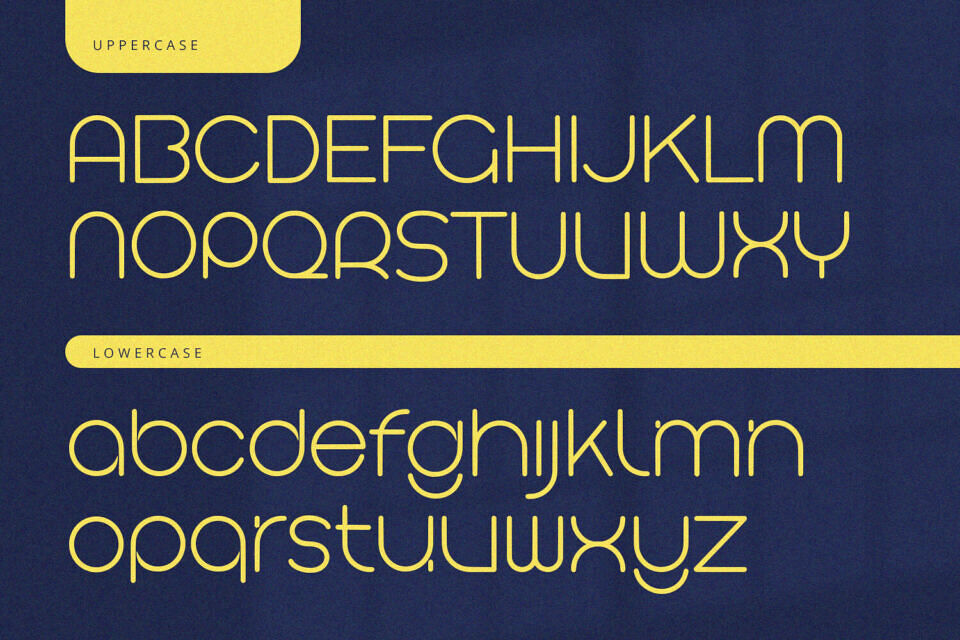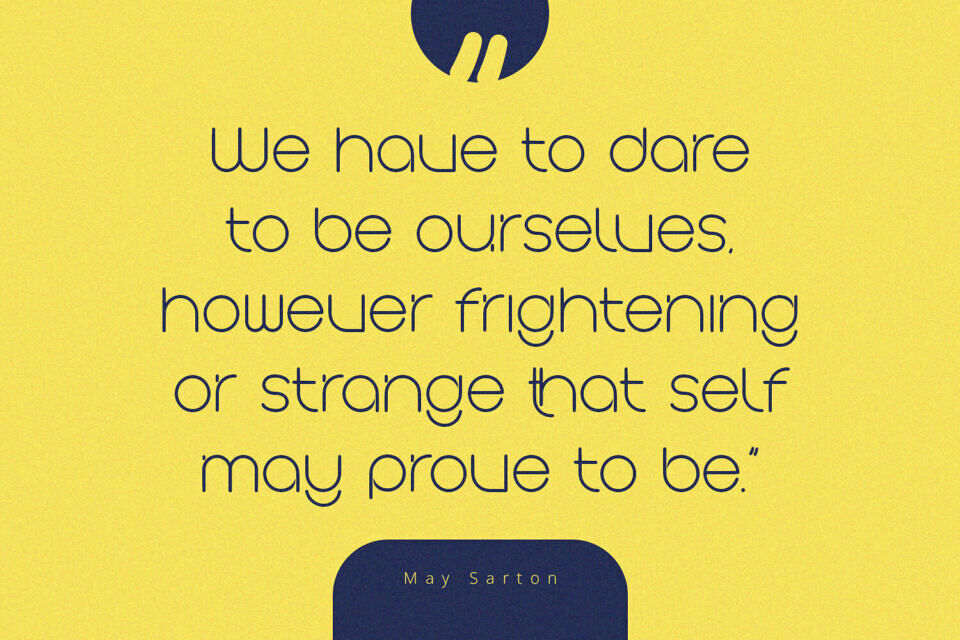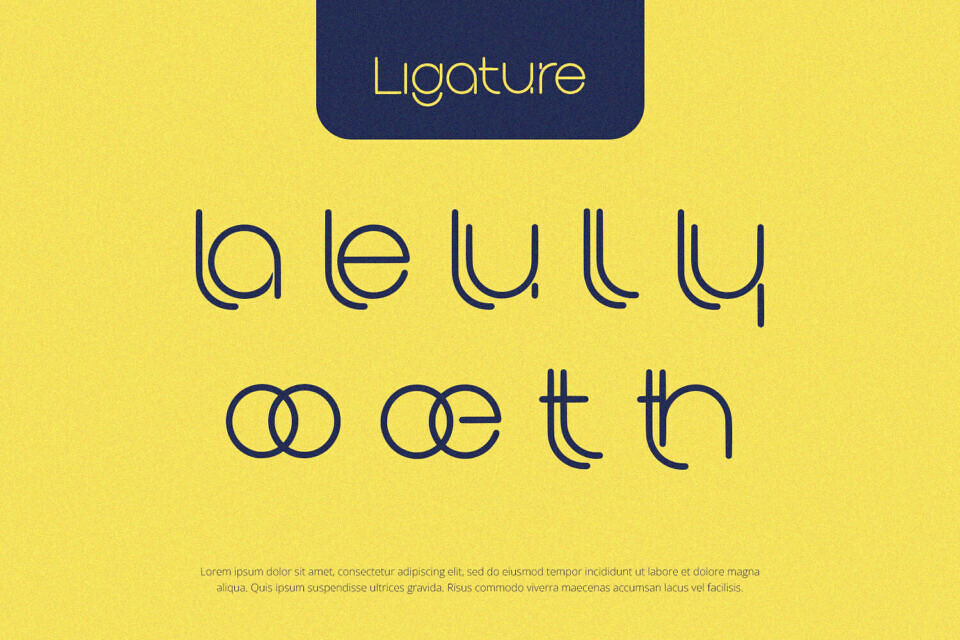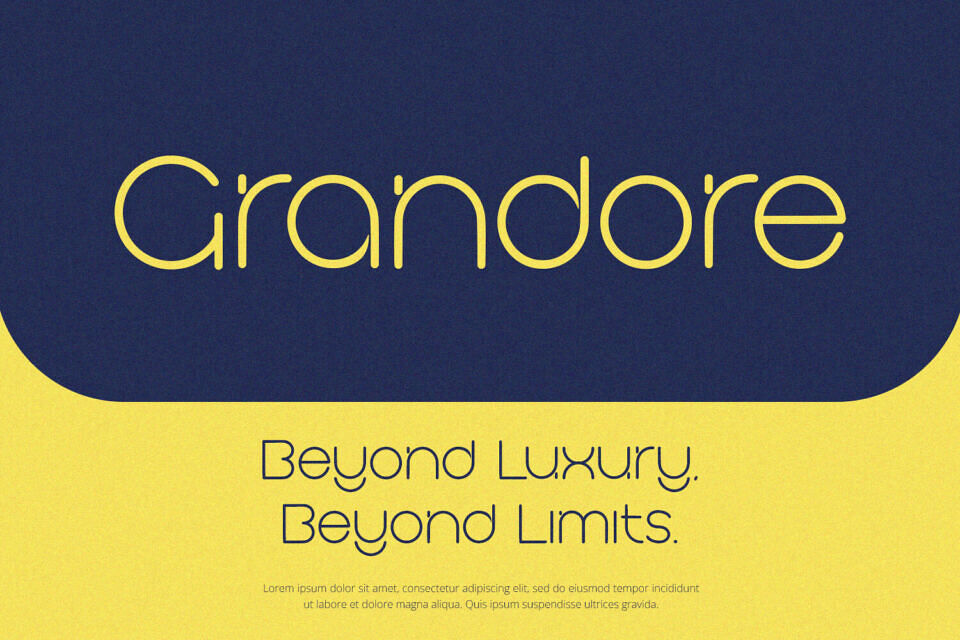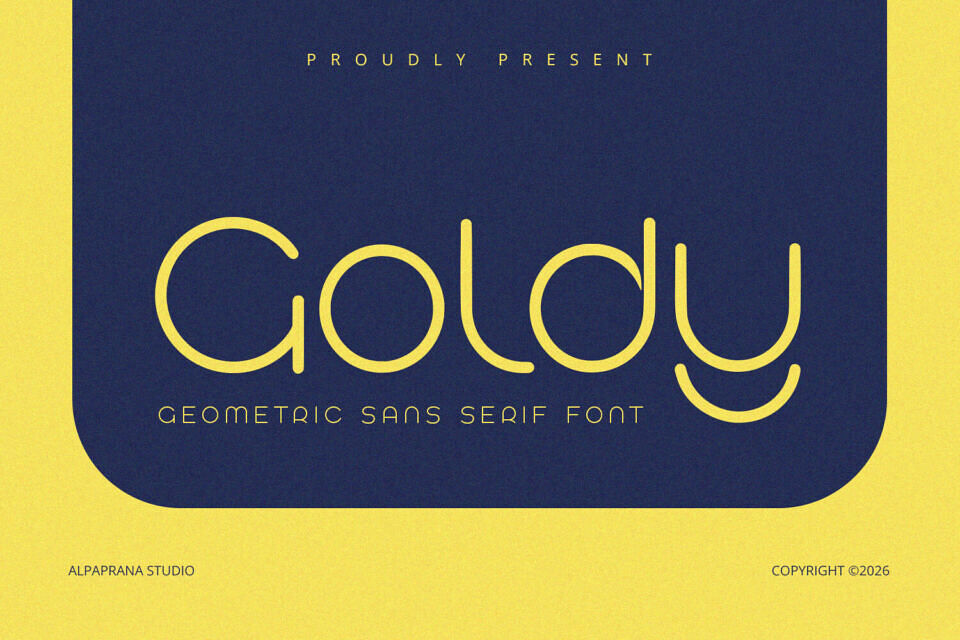
Goldy Font
Goldy is sans serif font with modern and futuristic feels. It will be perfectly used for Branding, Logo Design, Lettering, Logotype, Clothing, Poster, magazine, packaging, posters, shopping bags, t-shirts, book covers, photography, special events and other design project.